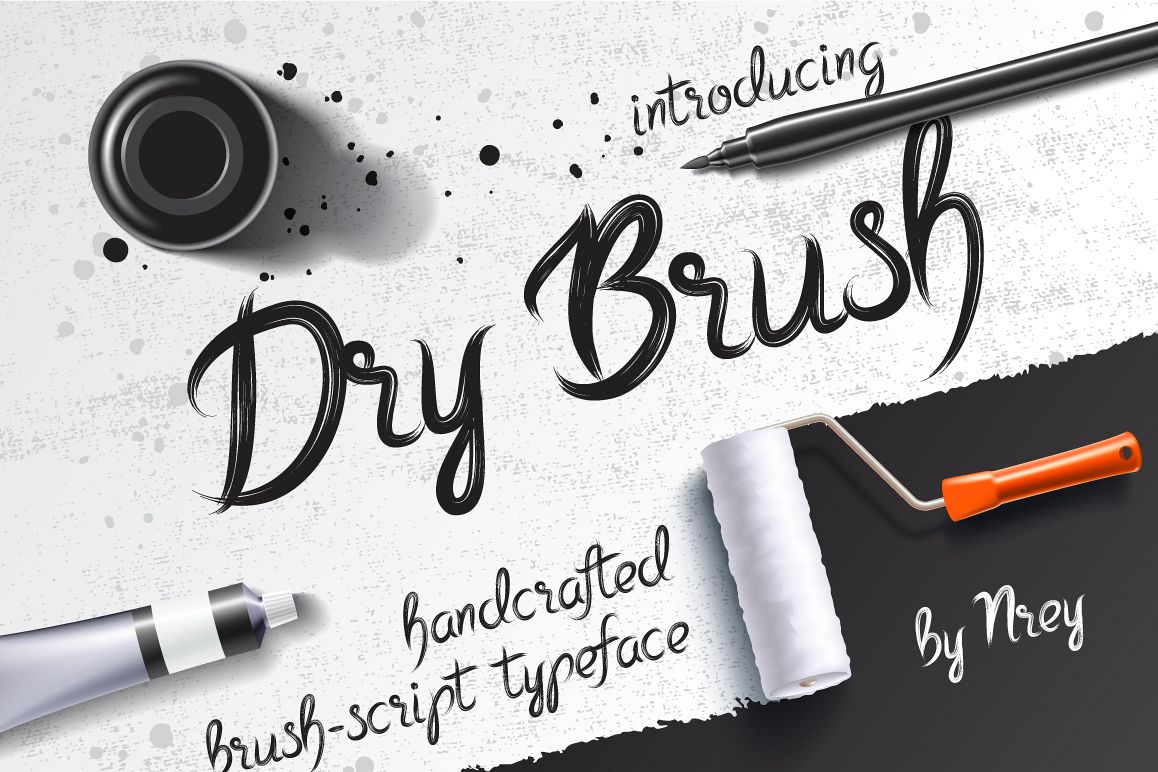
Dry Brush
Introducing new handcrafted typeface - Dry Brush. It is a brush pen script font with cool characters.
Dry Brush typeface based on DieCunst brush pen font letters, and very well compatible with it.
It works well with normal size text and for large displays or short words.
Dry Brush Features:
- Numerals & Punctuations
- Open Type featuring - ligatures